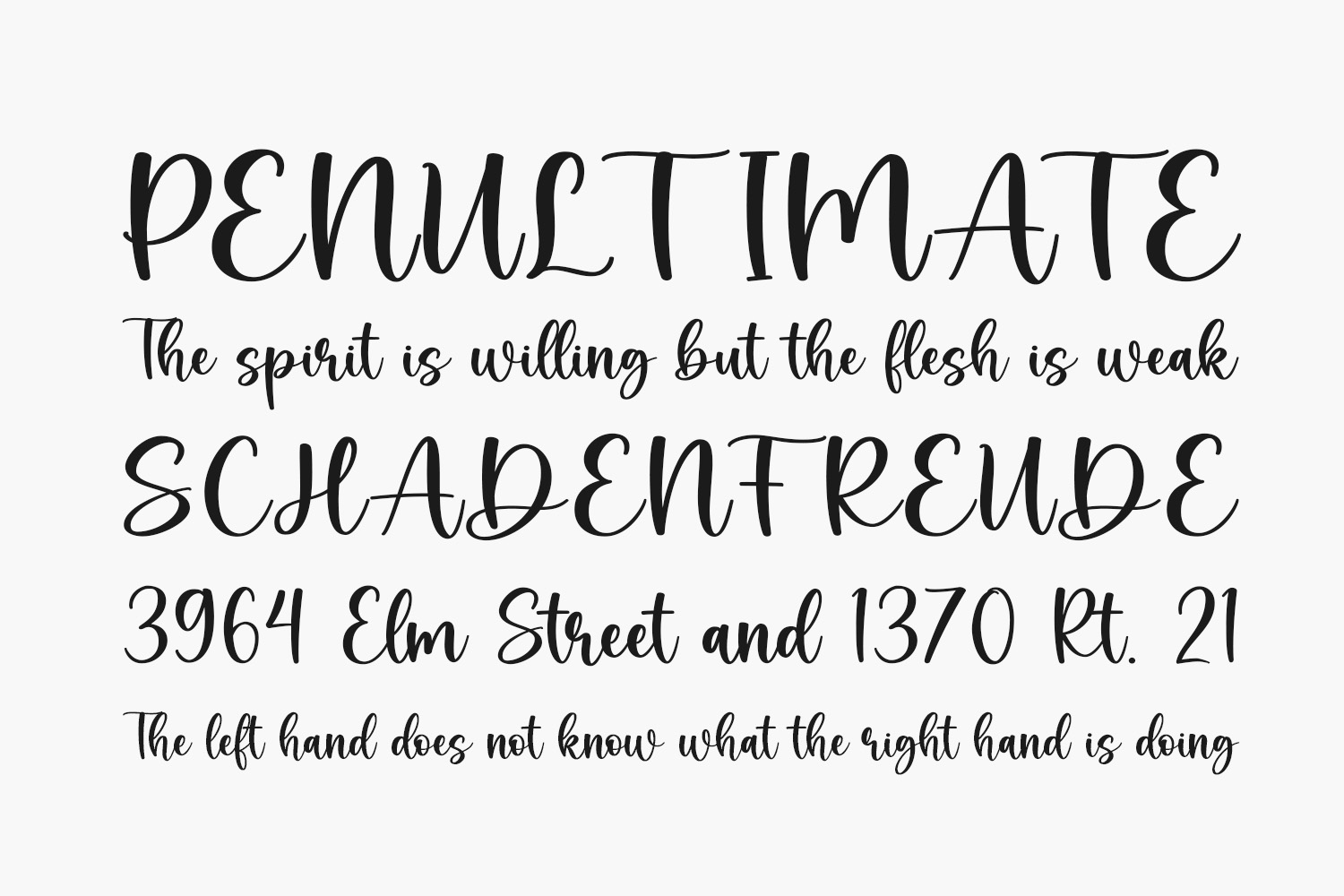
Bravely Free Font Family consists of two fonts designed to complement each other perfectly. Together or apart, these fonts are ideal for adding a chic and cheery touch to your crafts.
Designed by Graphix Line Studio